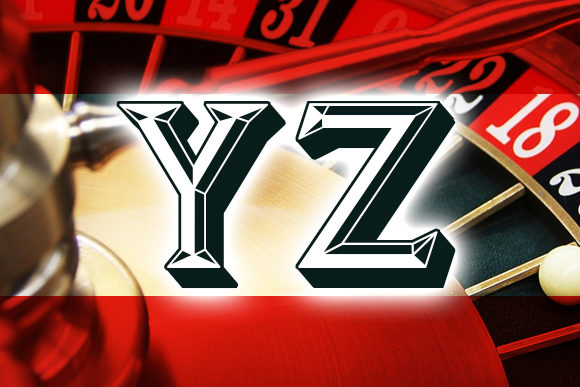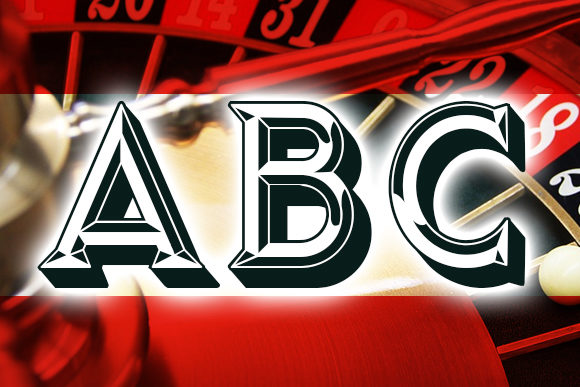
Gambler Font: Elevate Your Designs with a Touch of Sophistication
Are you tired of using the same old fonts in your designs? Look no further than the Gambler Font, an awesome 3D display font that’s sure to take your creations to the next level. With its sleek and sophisticated design, this font is perfect for designers and crafters looking to add a touch of glamour to their work.
What is Gambler Font?
Gambler Font is a stunning 3D display font that’s designed to make a statement. Its unique and eye-catching design makes it perfect for a wide range of applications, from posters and flyers to logos and branding materials. Whether you’re a professional designer or a crafty DIY enthusiast, this font is sure to inspire your creativity and help you create something truly special.
Key Features of Gambler Font
- 3D Display Font: Gambler Font is a true showstopper, with its bold and 3D design making it perfect for headlines and titles.
- Endless Variations: With Gambler Font, you can experiment with endless variations to create a truly unique look that suits your design style.
- Easy to Use: This font is incredibly easy to use, even for those with limited design experience.
- High-Quality Design: Gambler Font is designed with high-quality and precision, ensuring that it looks amazing in any design.
Perfect for a Wide Range of Designs
Gambler Font is incredibly versatile, making it perfect for a wide range of designs, including:
- Posters and Flyers: Add a touch of glamour to your posters and flyers with this stunning 3D font.
- Logos and Branding: Create a memorable and eye-catching logo with Gambler Font that’s sure to stand out.
- Social Media Graphics: Elevate your social media graphics with this beautiful font and make your content stand out.
- Packaging Design: Add a touch of sophistication to your packaging design with Gambler Font.
Why Choose Gambler Font?
So why choose Gambler Font over other fonts on the market? Here are just a few reasons:
- Unique Design: Gambler Font has a truly unique design that’s sure to make your designs stand out.
- High-Quality: This font is designed with precision and attention to detail, ensuring that it looks amazing in any design.
- Easy to Use: Gambler Font is incredibly easy to use, even for those with limited design experience.
- Versatile: This font is perfect for a wide range of designs, from posters and flyers to logos and branding materials.
Tips for Using Gambler Font
Here are a few tips for getting the most out of Gambler Font:
- Experiment with Different Colors: Try out different colors and combinations to find the perfect look for your design.
- Play with Font Sizes: Experiment with different font sizes to create a truly unique look.
- Combine with Other Fonts: Try combining Gambler Font with other fonts to create a truly unique and eye-catching design.